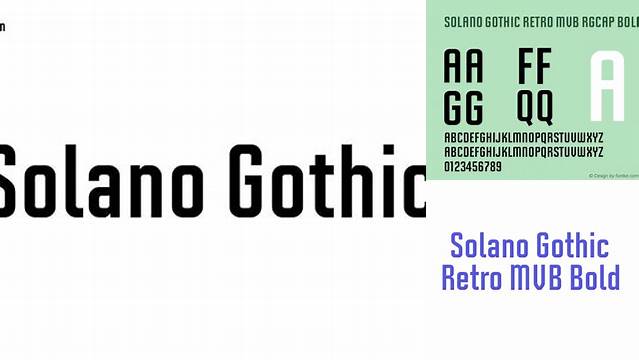
Hey guys! Are you on the hunt for a super cool, eye-catching font that's got that retro vibe but still feels modern? Well, look no further! Today, we're diving deep into the awesomeness of the Solano Gothic Retro MVB Bold Cap font, and the best part? You can grab a free download! Let's get into why this font is a game-changer and how you can use it to spice up your designs. Ready to level up your font game? Let's go!
H2: Unveiling the Solano Gothic Retro Font: A Blast from the Past
Okay, so what exactly is the Solano Gothic Retro font? Imagine a font that's like a time machine, blending the coolness of retro design with a modern twist. This font is all about that bold, attention-grabbing style, perfect for making your projects pop. The Solano Gothic Retro font comes in various styles, but the Bold Cap version is the star of the show. It's got those strong, defined letterforms that are impossible to ignore. Think of it as the rockstar of the font world – it knows how to make an entrance! This font is all about making a statement. It's perfect for headlines, titles, and anything that needs to shout, “Hey, look at me!” The retro influence is clear, with a nod to classic design, but the modern execution keeps it fresh and current. If you're aiming to capture that nostalgic feeling with a contemporary edge, this is your go-to font. Whether you're designing a poster, a website banner, or even just spicing up your social media posts, the Solano Gothic Retro font will bring a unique flair. It’s all about creating designs that stand out from the crowd. The clarity and readability of the bold caps ensure that your message is not only stylish but also easy to understand, which is a win-win. The retro vibe gives it a unique personality, while the boldness ensures it commands attention. This font truly is a design powerhouse! It’s like giving your project a makeover and adding a dash of vintage charm.
If you're a designer, this font is a must-have in your toolkit. It offers versatility and personality, perfect for injecting creativity into your designs. It’s not just about looking good; it's about communicating effectively and making an impression. You want your audience to remember your brand or message, right? Well, the Solano Gothic Retro font helps you achieve precisely that. It's bold, it's stylish, and it’s a fantastic way to add depth and character to any creative project. It’s not just a font; it's a statement.
H2: Why the Solano Gothic Retro MVB Bold Cap is a Designer's Dream
Alright, let's talk about why the Solano Gothic Retro MVB Bold Cap font is a designer's dream come true. Firstly, the boldness is a huge advantage. It grabs attention immediately. In a world filled with visual noise, you need a font that cuts through the clutter. The Solano Gothic Retro does just that. Its robust letterforms ensure that your text is easily legible, even from a distance. This is especially important for headlines and titles. Secondly, the retro vibe is a major draw. Retro designs are super popular right now. They bring a sense of nostalgia and timelessness that resonates with many people. This font allows you to tap into that trend effortlessly, adding a touch of vintage flair to your projects. Thirdly, the versatility is key. This font isn't just for one type of project. You can use it for a wide range of applications, from branding and logos to posters and social media graphics. Its adaptable nature makes it a valuable asset in any designer's arsenal. Imagine all the creative possibilities! Think about crafting eye-catching advertisements, designing striking website headers, or creating memorable product packaging. The Solano Gothic Retro font provides you with a versatile tool that enhances your creative process and expands your design capabilities. Its aesthetic appeal is undeniable, making it an excellent choice for a variety of projects. This font is also super easy to work with, making your job much easier!
H3: The Boldness Factor: Making Your Designs Pop
Guys, let’s zero in on the boldness of the Solano Gothic Retro MVB Bold Cap. This is where the magic happens. This font isn't shy; it's designed to be noticed. The thick strokes and strong lines of each character create a visual impact that commands attention. Whether you're aiming to capture the immediate focus of an audience or simply make your text stand out, boldness does the job. This is a font that isn’t afraid to be loud and proud! Consider the use of bold text in marketing materials, headlines, or even short, punchy slogans. The goal is to ensure your key messages are easily seen and understood at a glance. The bold style adds a powerful visual element. The clarity ensures your text is instantly readable, while the boldness amplifies the emotional impact. Think about the energy and vitality you can inject into your creations. A bold font helps your message resonate. It creates an emotional connection with your audience, making them more likely to remember and respond to your content. It also adds a sense of professionalism and sophistication to any project. Bold fonts are a timeless design element that is effective across a variety of platforms. If you need to make a statement, highlight a key point, or add a striking visual element, then the Solano Gothic Retro MVB Bold Cap is your best bet.
Using a bold font, you convey confidence. It also indicates a commitment to clarity and impact. It helps establish visual hierarchy. You can guide your audience’s eyes to the most important information on your page. If you want to boost the visual impact of your designs, the bold factor of the Solano Gothic Retro MVB Bold Cap is the perfect choice. It's a game-changer. Your designs will leap off the page, grab attention, and leave a lasting impression.
H3: Embracing the Retro Vibe: A Touch of Nostalgia
Hey, let's talk about the retro vibe. The Solano Gothic Retro font does a brilliant job of capturing that nostalgic feeling. Retro design has a way of connecting with people on an emotional level. It reminds them of a simpler time and often evokes positive feelings of nostalgia. If you want to add a touch of vintage charm to your projects, then this font is perfect. It has that classic look, which can be super appealing. Retro fonts are incredibly popular right now. They bring a sense of character and history to your designs. Using this font helps you tap into that trend and create designs that have a timeless quality. Think of it like giving your designs a little time-traveling magic! Retro elements are very versatile. This makes them suitable for many different kinds of projects. From websites and posters to social media content, this font adds character and a sense of cool. The result is a visually appealing and engaging aesthetic. A retro design can help your brand stand out. It’s a way to create a sense of familiarity and authenticity. This can build trust and enhance your brand's appeal.
Also, retro fonts often work well in combination with modern design elements. This fusion of old and new creates a unique and stylish look. The Solano Gothic Retro font is easy to use. It seamlessly integrates into your design workflow. So, if you want to add a touch of nostalgia, the retro vibe of this font is perfect. Create designs that celebrate the past while looking forward to the future! Embrace the charm and style of the past.
H3: Versatility Unleashed: From Logos to Social Media
Now, let’s dive into versatility. The Solano Gothic Retro MVB Bold Cap font shines in a wide array of design applications. From crafting compelling logos to eye-catching social media graphics, this font is a true chameleon. Its adaptability makes it an invaluable asset in any designer’s toolkit. Imagine the possibilities! With this font, you can design logos that are memorable and instantly recognizable. Create a logo that is both stylish and unique. It can be used for branding purposes, ensuring consistency in your designs. It's all about crafting a cohesive and engaging brand image. On social media, this font will grab your followers’ attention with its bold appearance. It’s perfect for creating posts that cut through the noise. This is especially beneficial in a crowded digital space. You can use it for headlines, captions, and any other text elements. If you are designing posters or advertisements, the font's readability will make your message clear and easily accessible. It's all about creating designs that are both visually stunning and effective in communicating your message. The versatility also extends to website design. You can use this font for headers, subheadings, and other text elements. The bold and stylish appearance of the font can enhance the overall aesthetic appeal of your website.